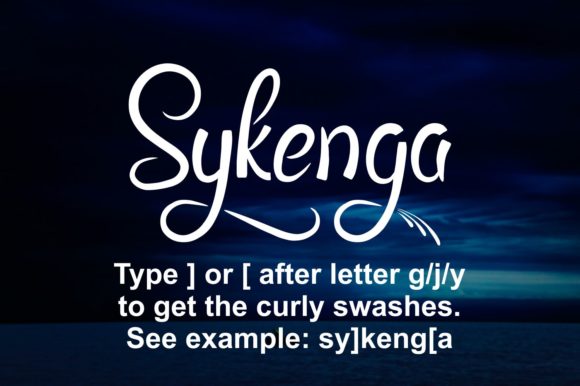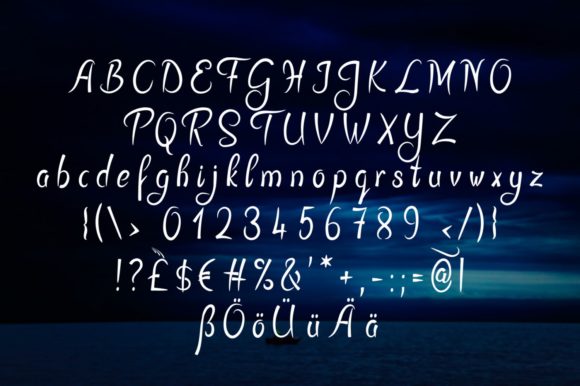
HomeScript FontsSykenga Font Script Fonts Sykenga Font FacebookXPinterestWhatsApp Sykenga Font Poster 2 Sykenga Font Poster 3 About Sykenga Font Sykenga is a stencil font with beautiful swashes. It will add a distinct look to any design project! DOWNLOAD NOW People also explored Scottsdale Antically Font Electric Green Gildan 5000 TShirt Mockup Silhouette Font Black Frame Mockup with Pink Tulip Speak out Font Lattoria Bay Font Fitfully Font 479 0 TagsSykenga Font Previous articleThe Fashionist FontNext articleGreyfox Font LEAVE A REPLY Cancel reply Comment: Please enter your comment! Name:* Please enter your name here Email:* You have entered an incorrect email address! Please enter your email address here Website: Save my name, email, and website in this browser for the next time I comment. Personal Use Free Nouradilla Script Free Version Personal Use Free Read more about this font Histeria Bites Personal Use Free Read more about this font Wintersoul Personal Use Free Read more about this font Quickline Personal Use Free Read more about this font BLOG Elegant Wedding Invitation Fonts – Handwritten & Script Fonts Elegant Wedding Invitation Fonts Your wedding day is one of the most important moments of your life, and every detail matters—including your invitation design. Our... Top 10 Handwritten Fonts That Elevate Your Designs The 10 Best Handwriting Fonts to Add Personality to Your Designs Best Fonts for YouTube Videos: Make Your Thumbnails Stand Out